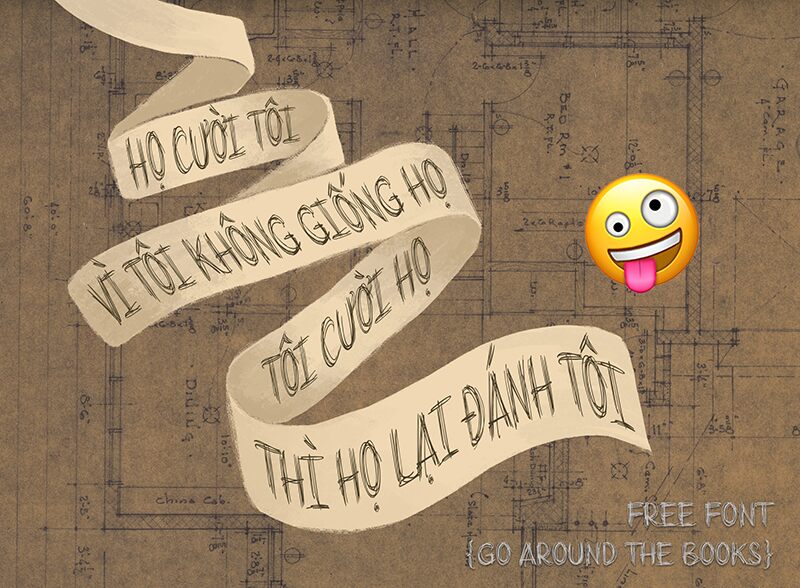
Go around the books 2022 font is a trash typeface designed by Le Thi Thu Huong.
This is the first time I've created too much alternate characters into one font, so you must have Adobe Illustrator to view/use all of them.